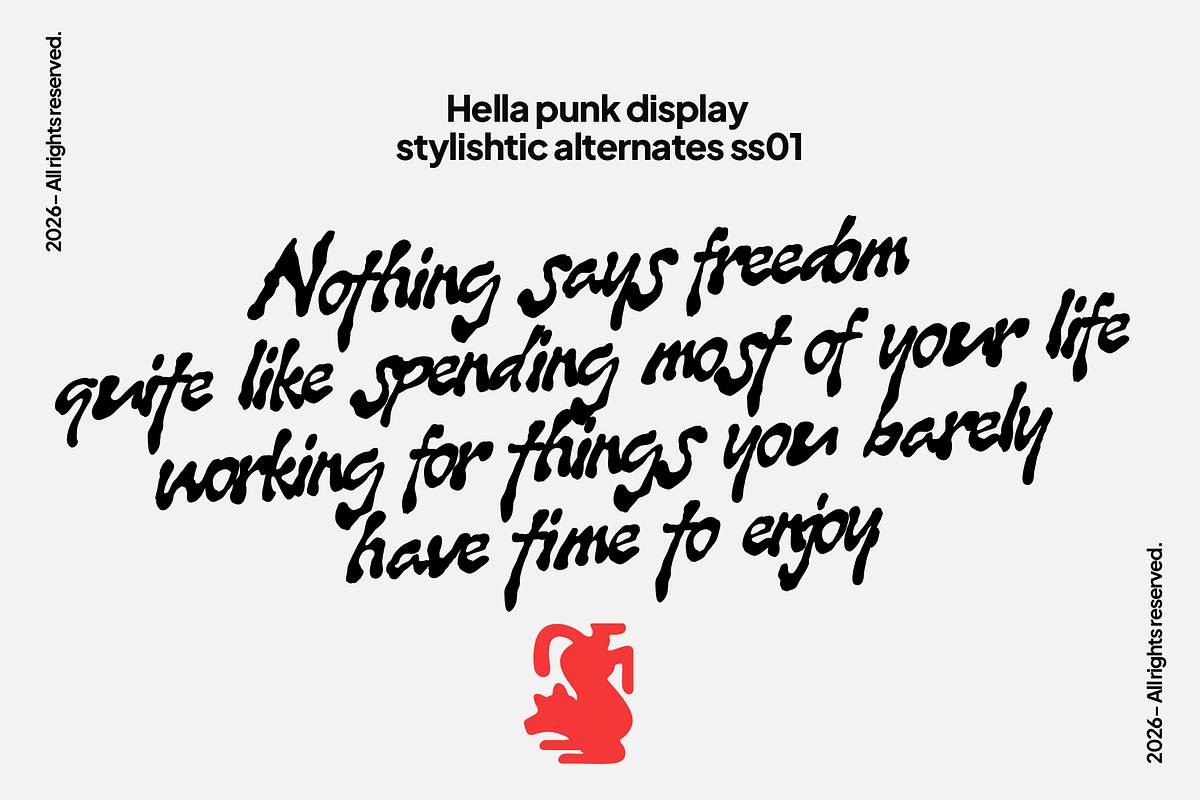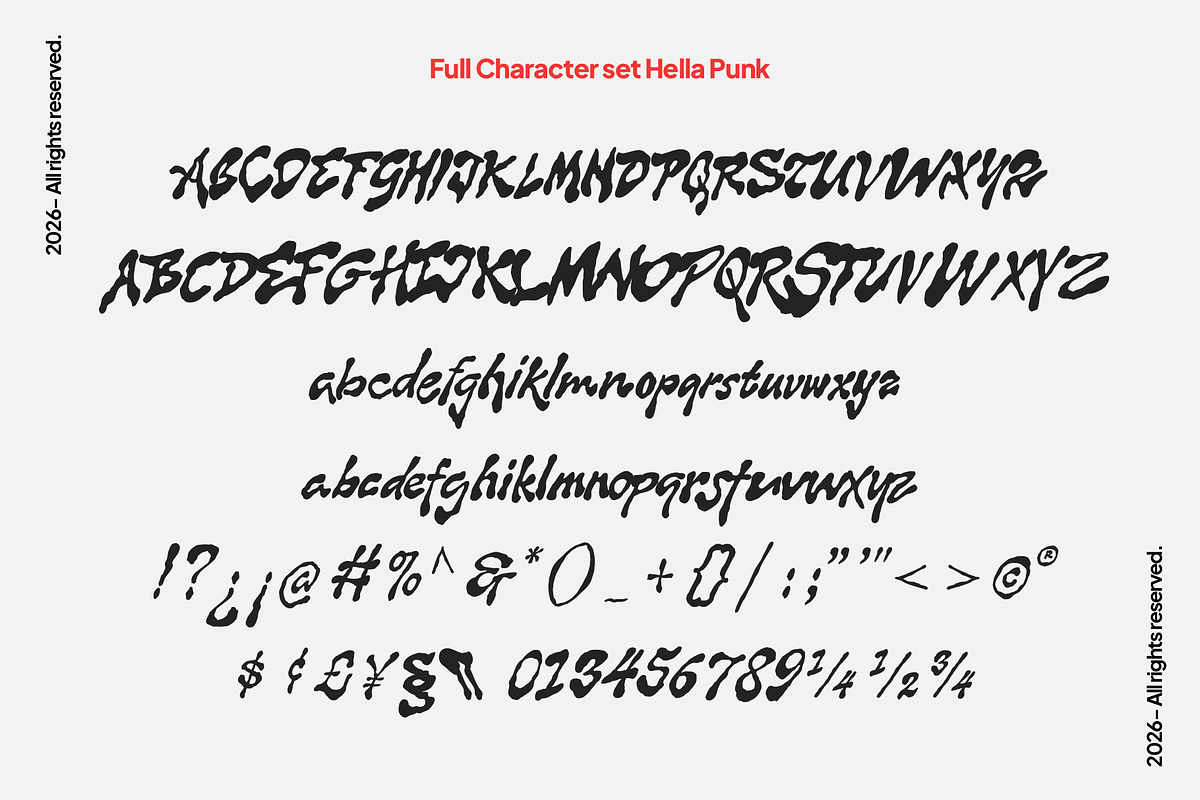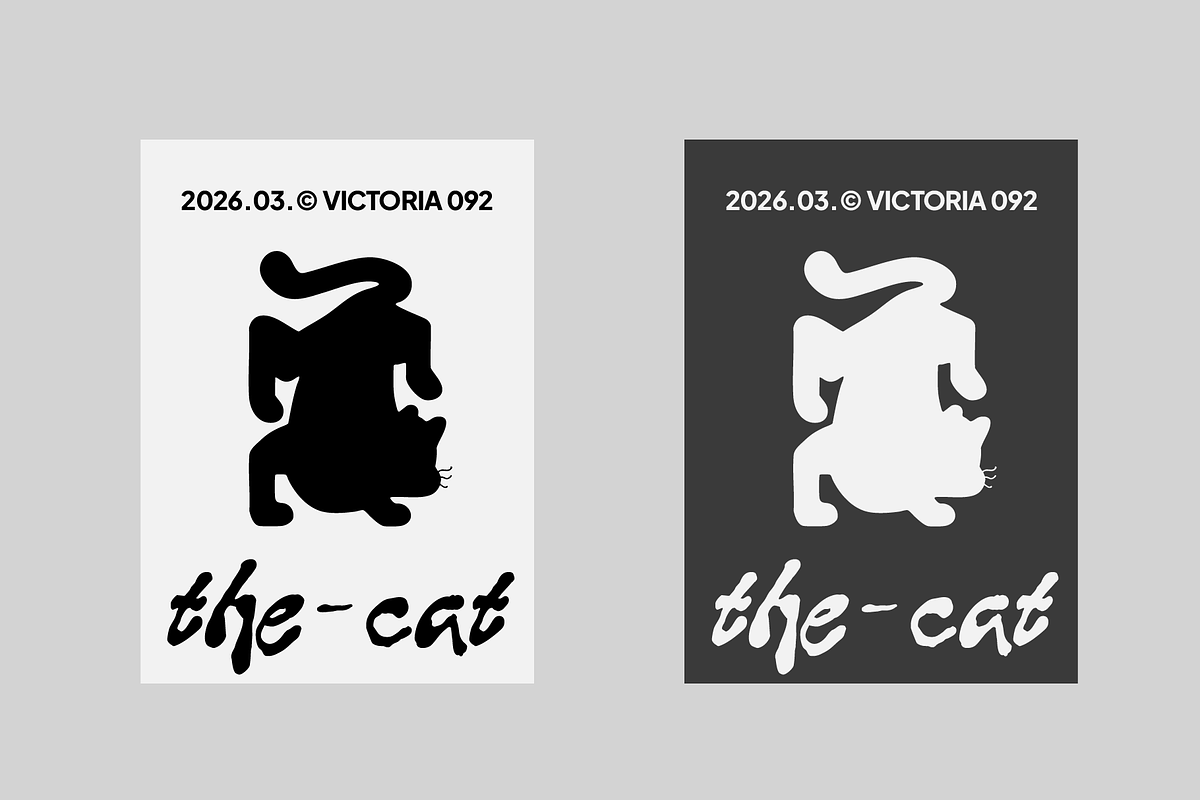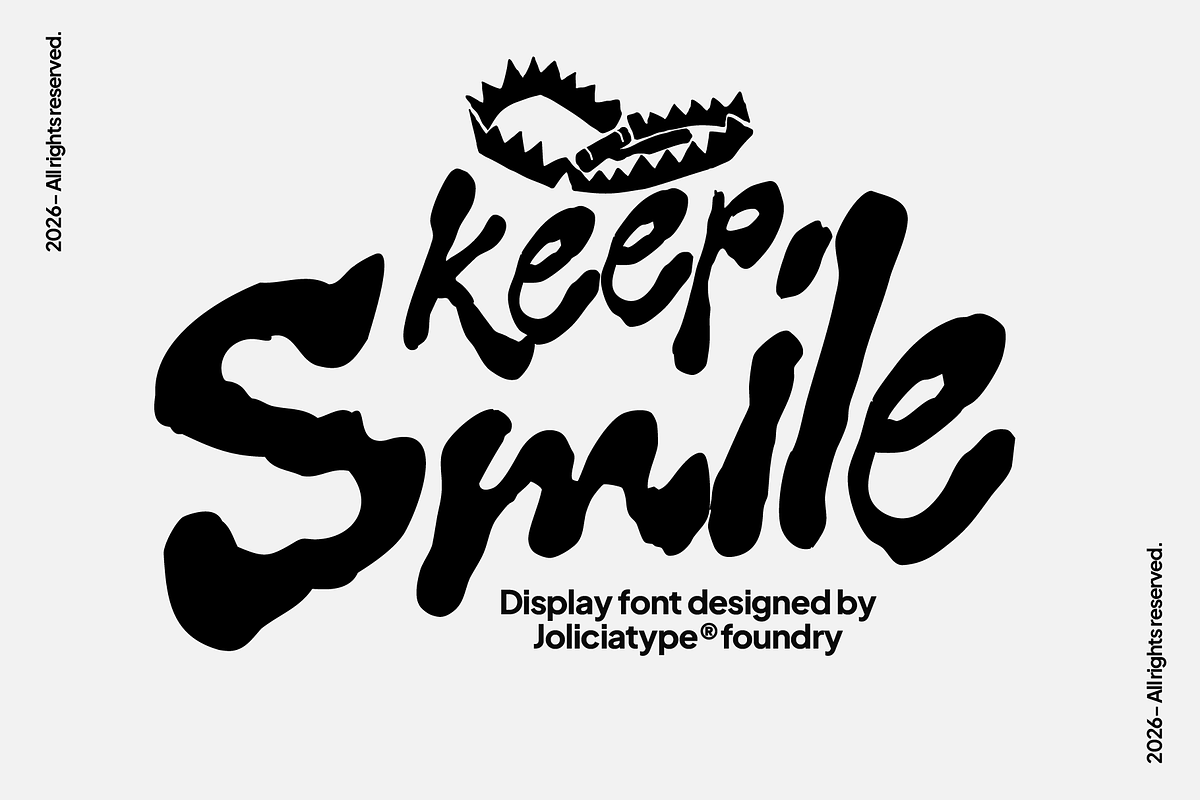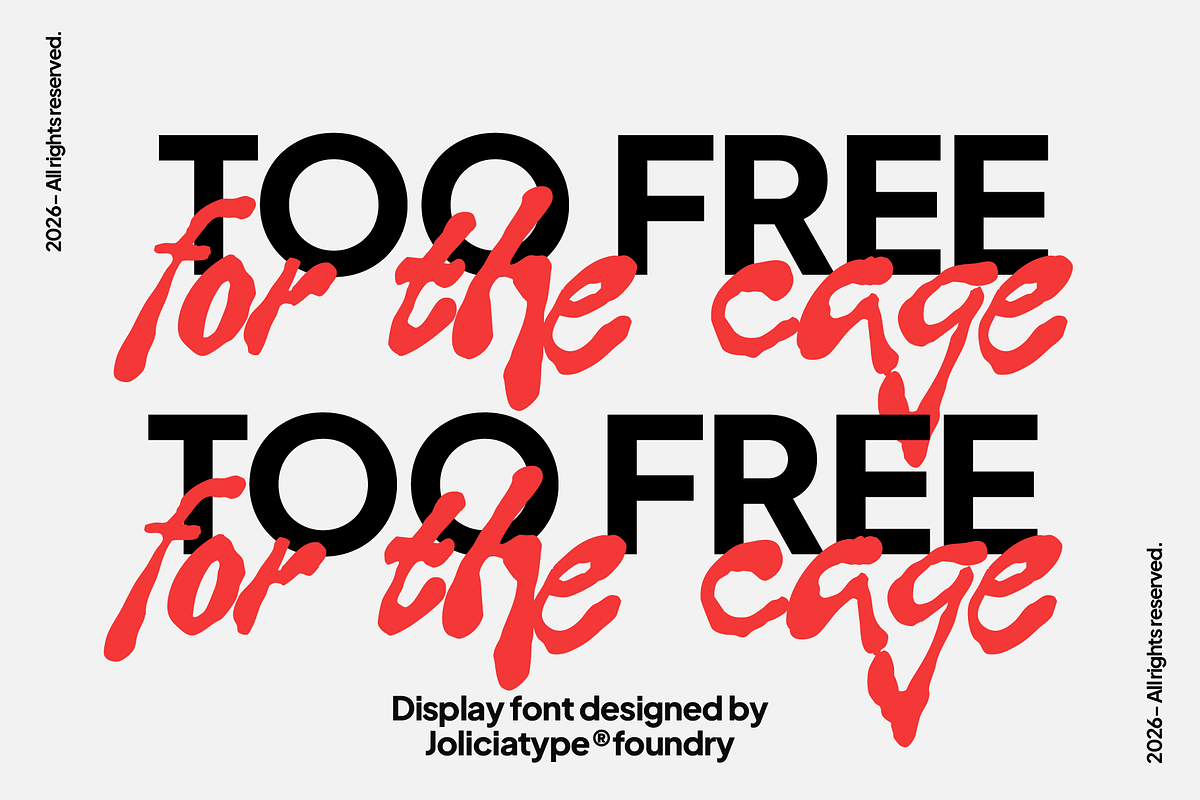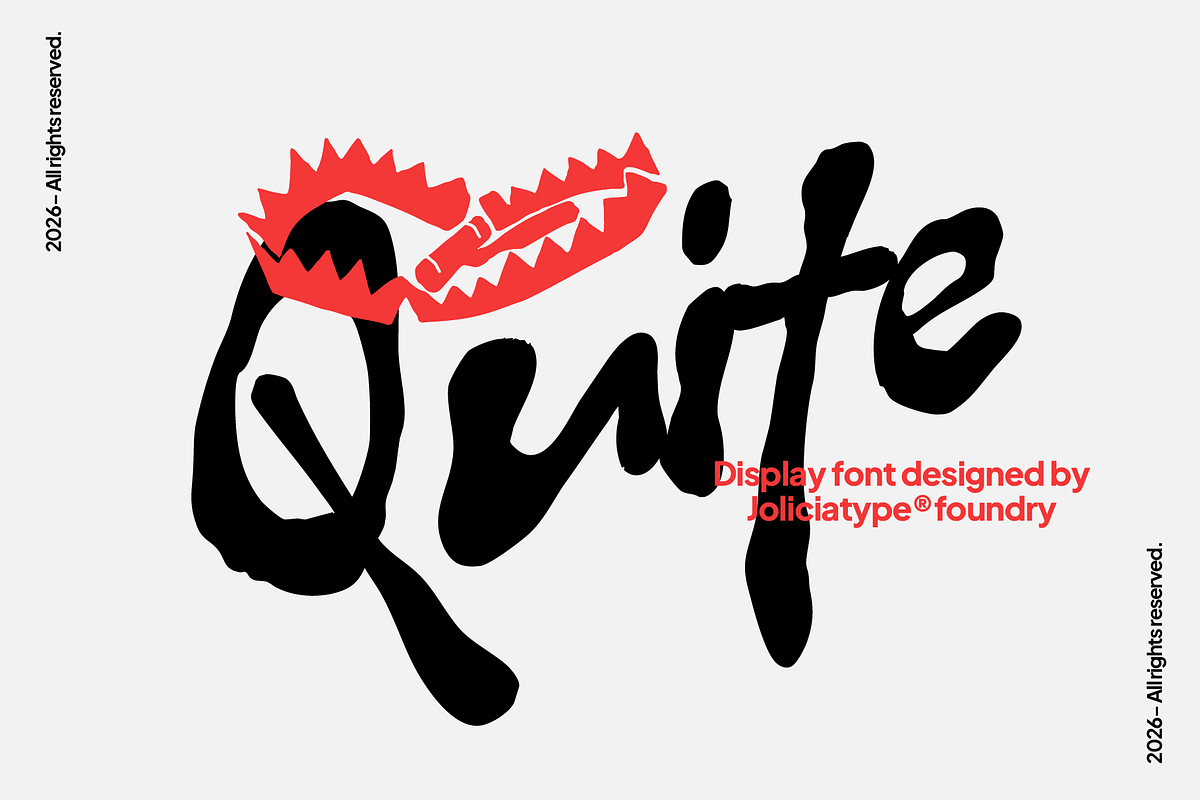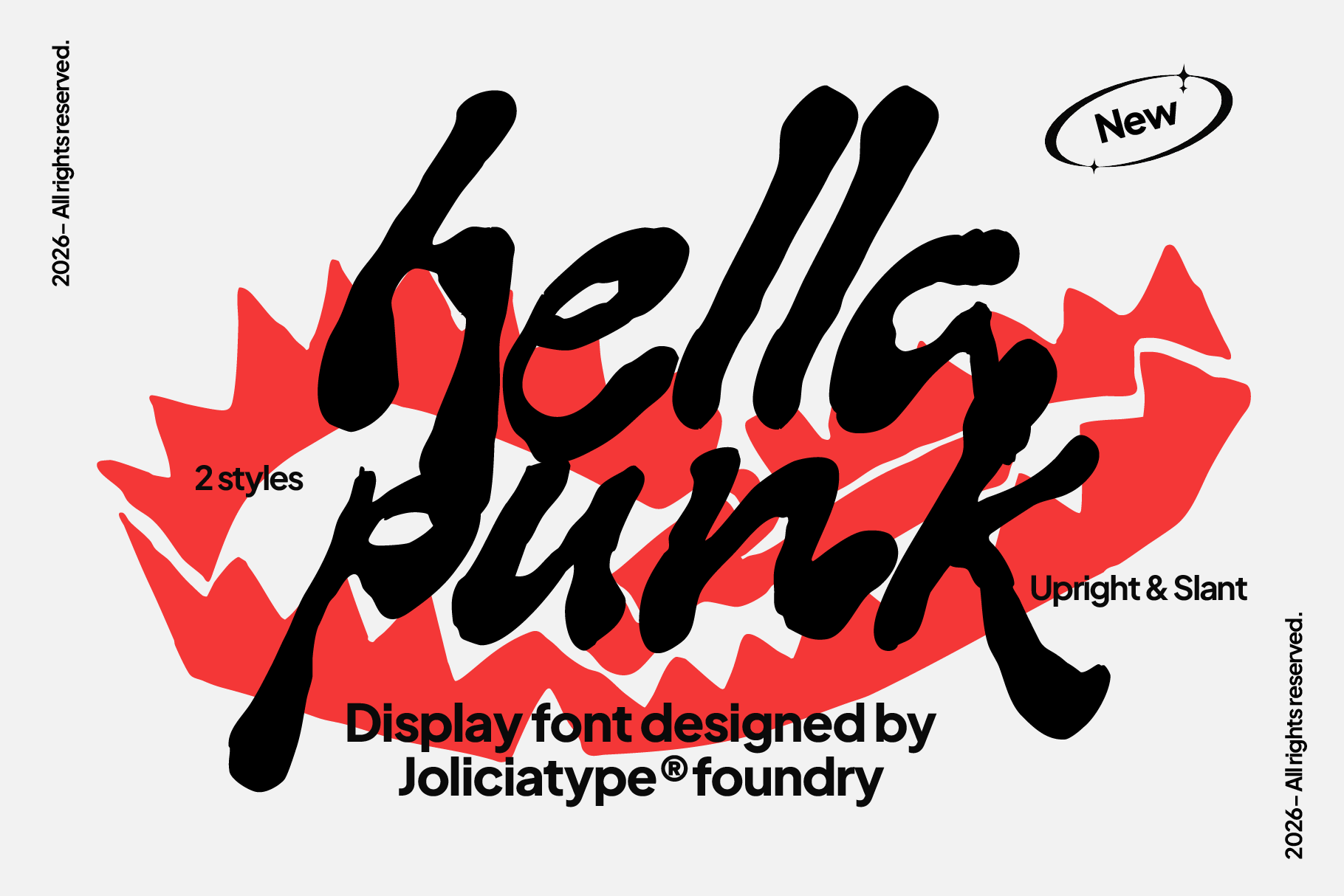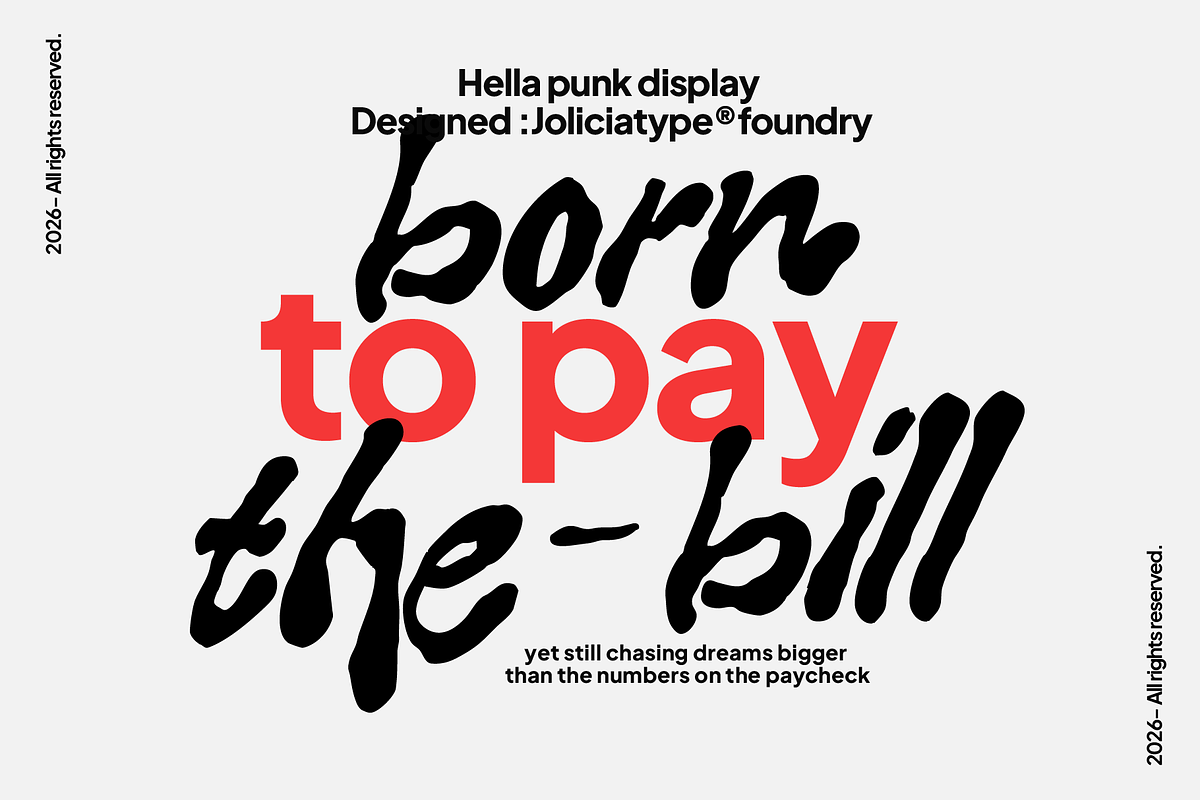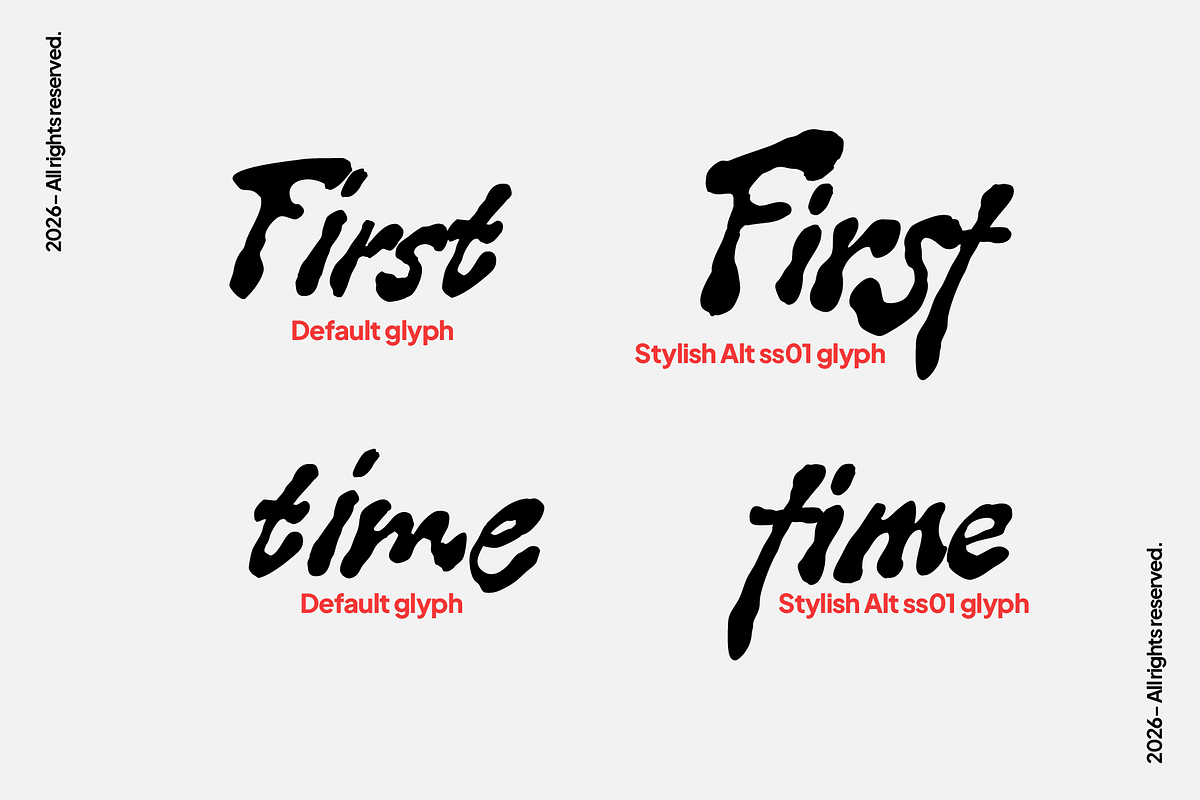
Hella Punk | Display Font
Hella Punk is a raw handmade display font inspired by the rebellious spirit of street culture, underground scenes, and punk aesthetics. Crafted with rough organic strokes and an intentionally imperfect style, this font captures the energy of hand-painted signs, graffiti tags, and DIY posters found in urban environments. Its bold and expressive letterforms create a strong visual impact, making it perfect for music artwork, streetwear branding, album covers, posters, packaging, and rebellious design projects. With its authentic handcrafted appearance and untamed personality, Hella Punk delivers a loud, fearless, and unapologetically street-inspired attitude to every design. Inspired by DIY culture and urban expression, it adds bold energy, raw character, and rebellious charm to modern creative projects.